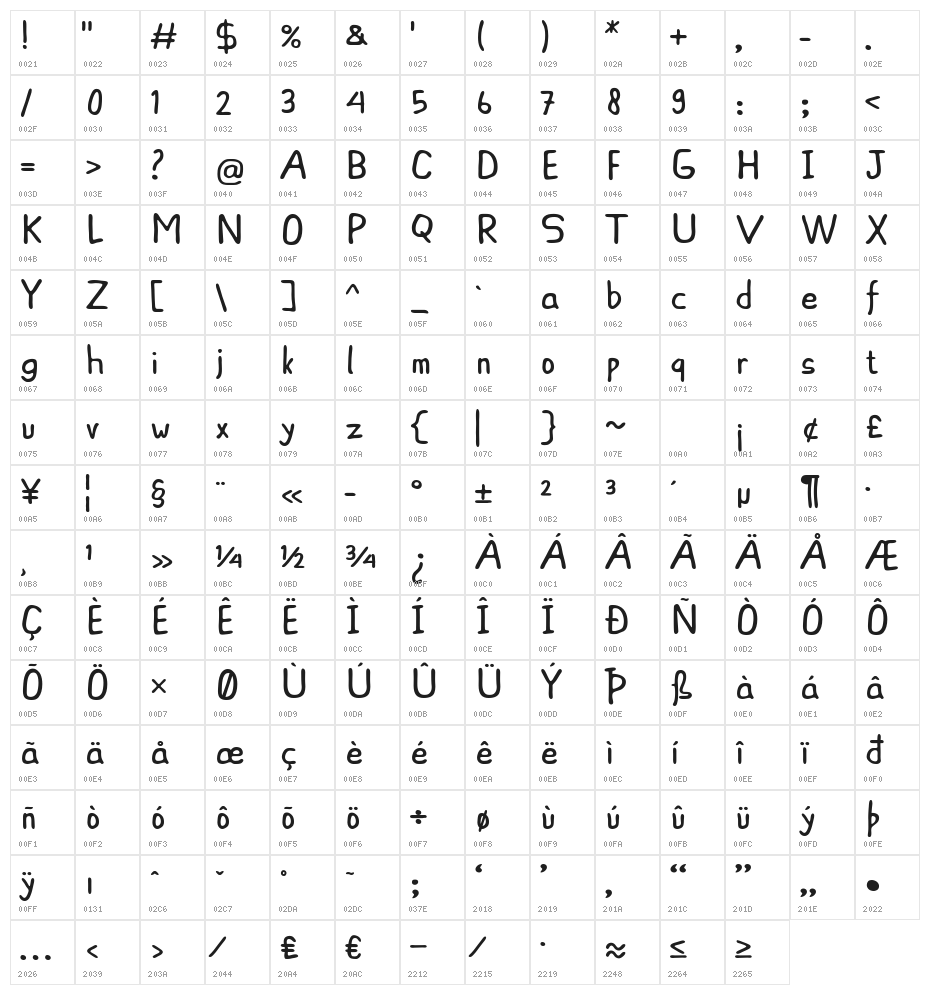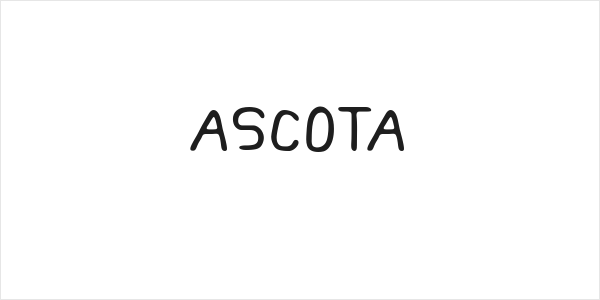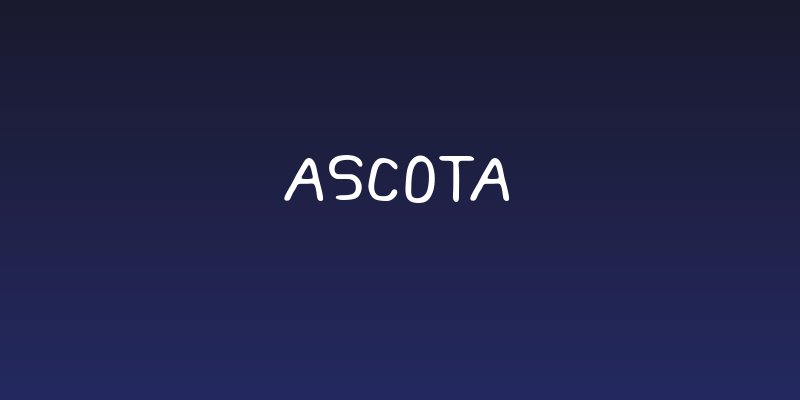
ASCOTA Font
| Stile generale | Casual |
| Caso d'uso | Headlines, Logos, Informal Text |
| Progetti proposti | Ideal for children's books, casual invitations, greeting cards, and playful branding. |